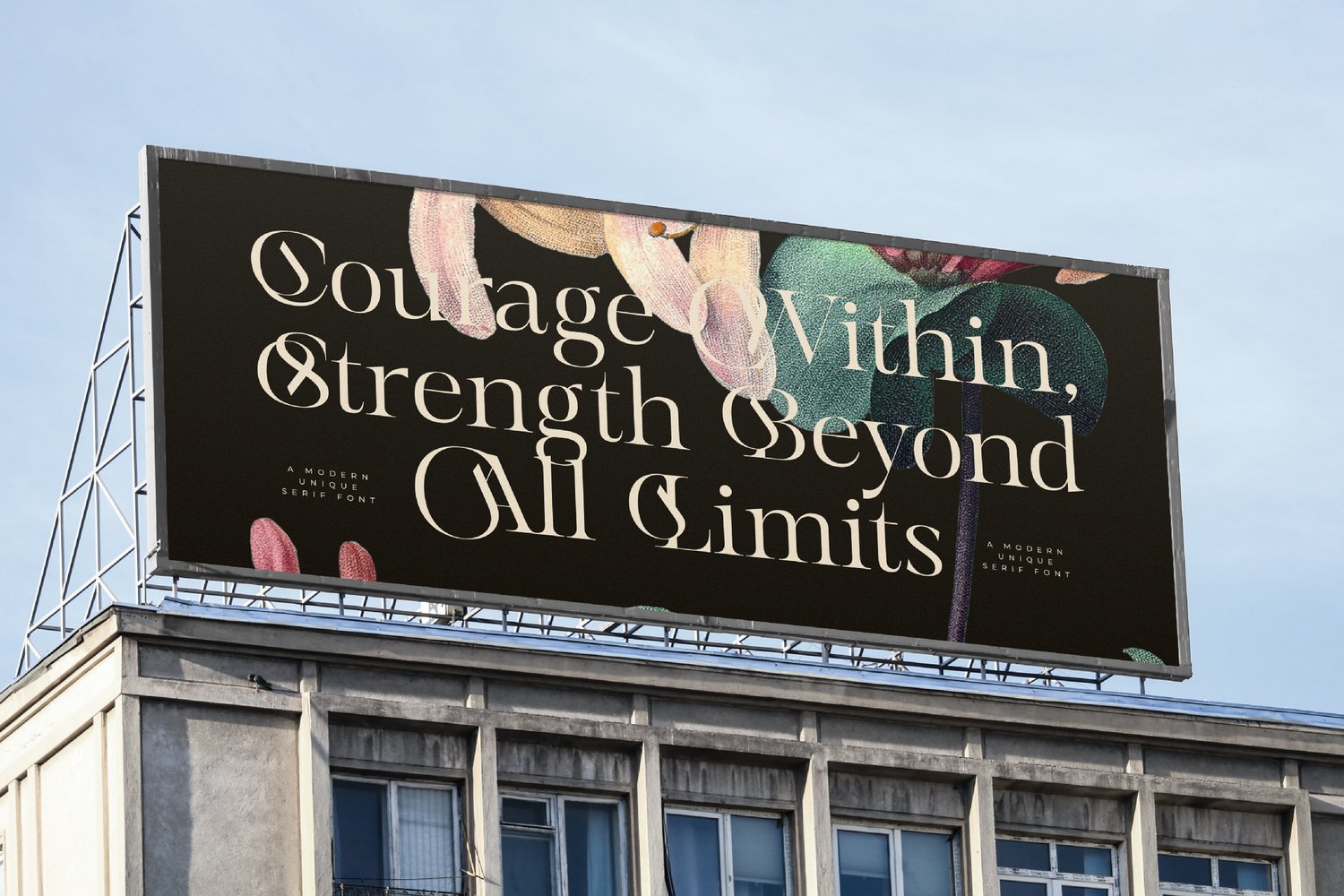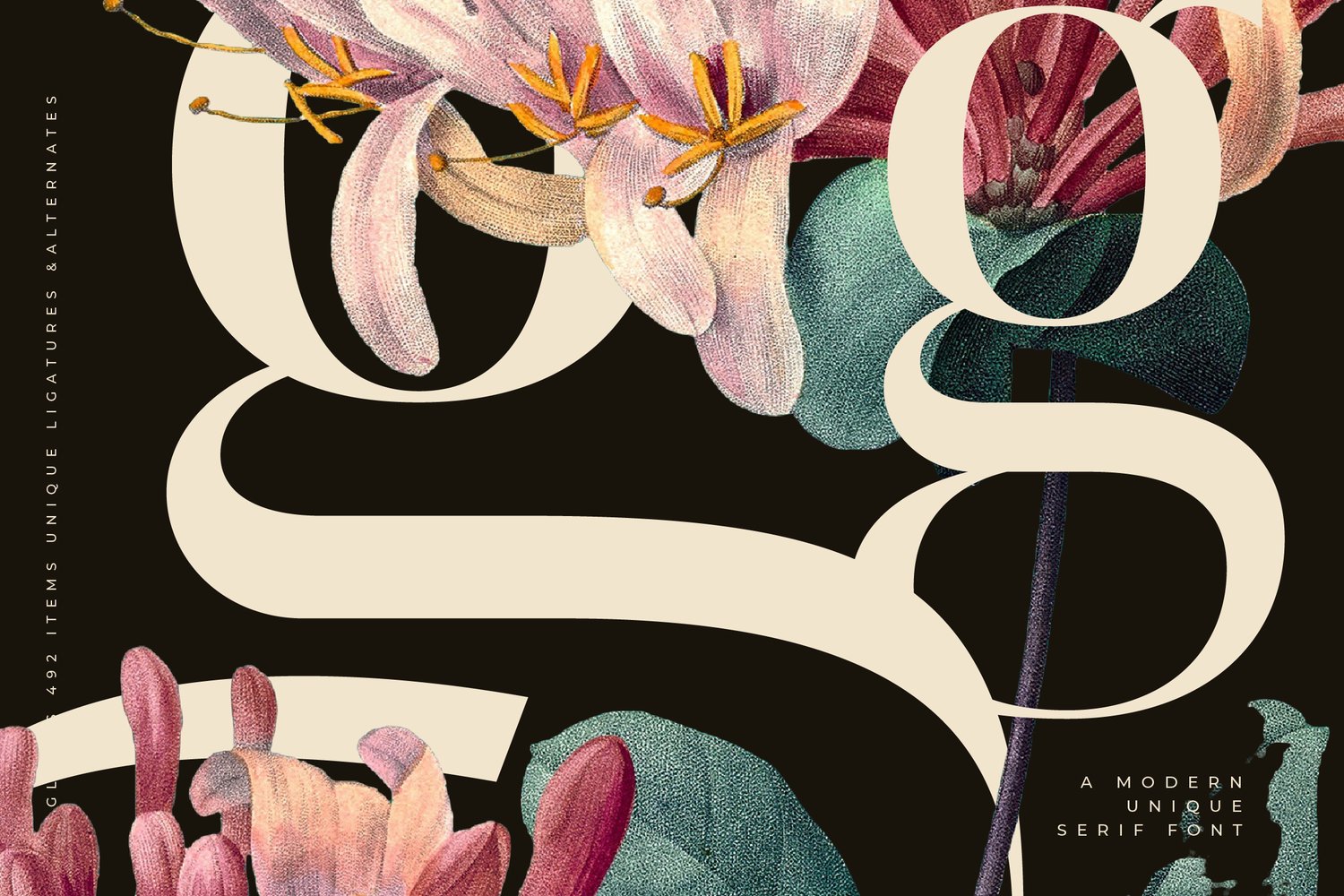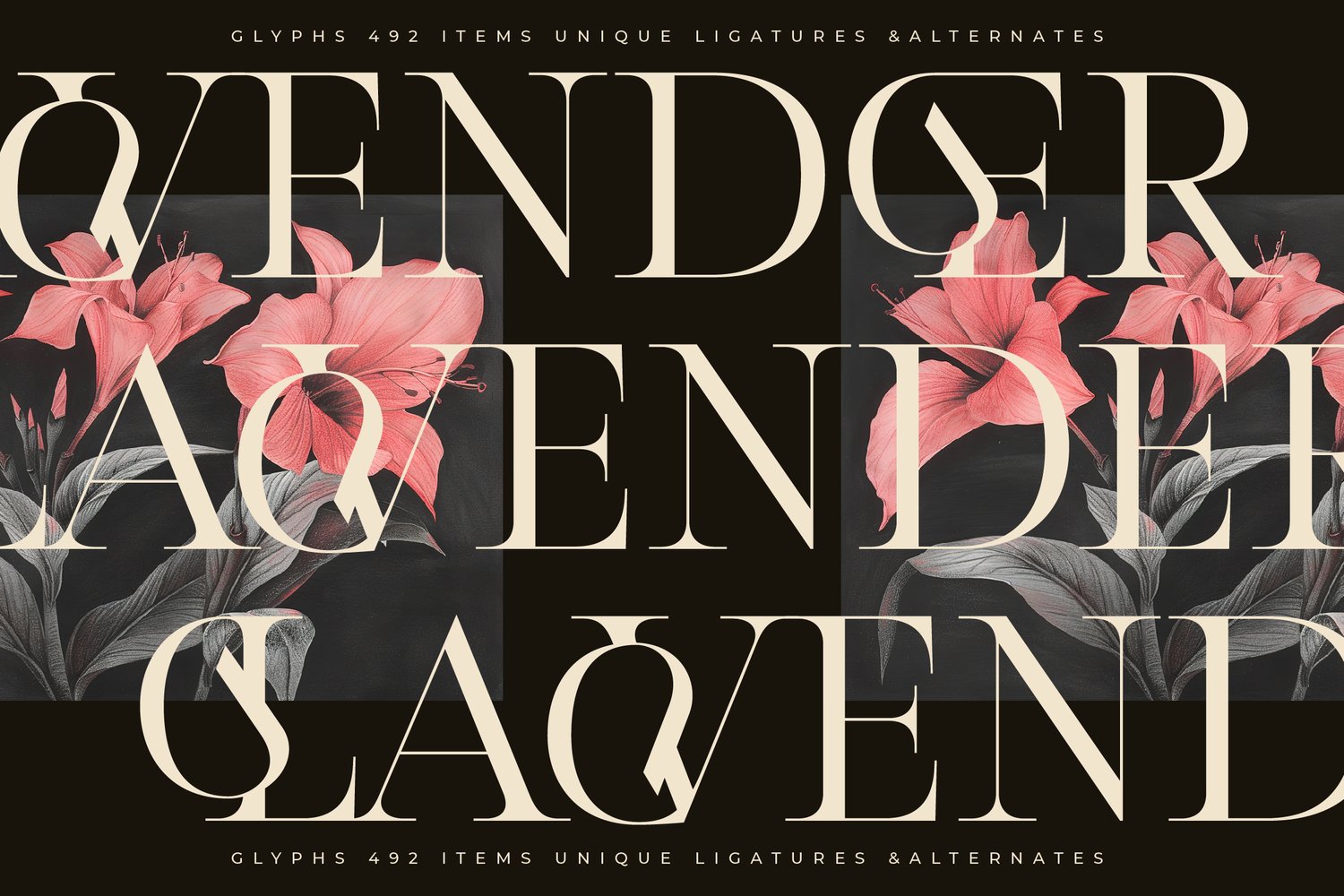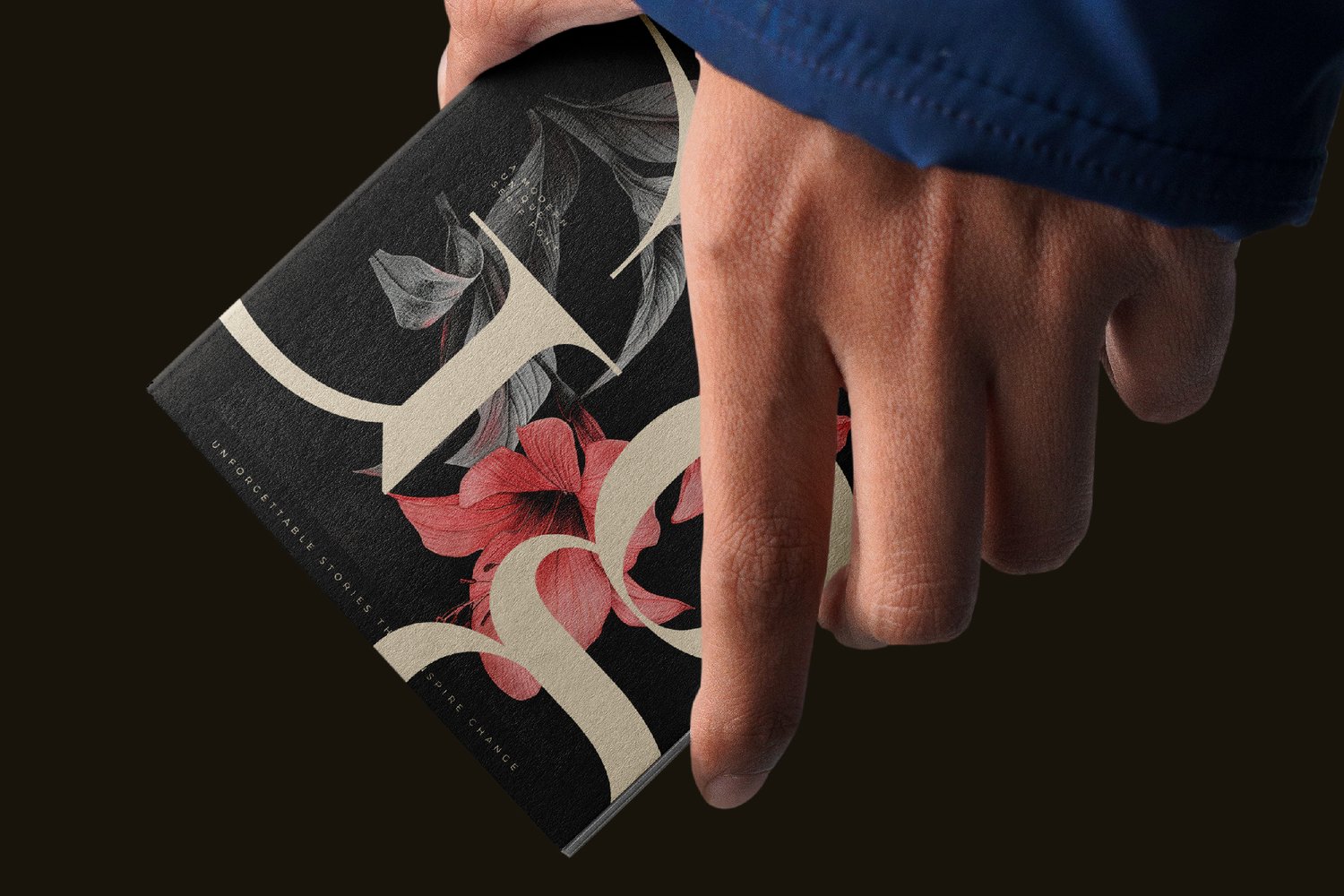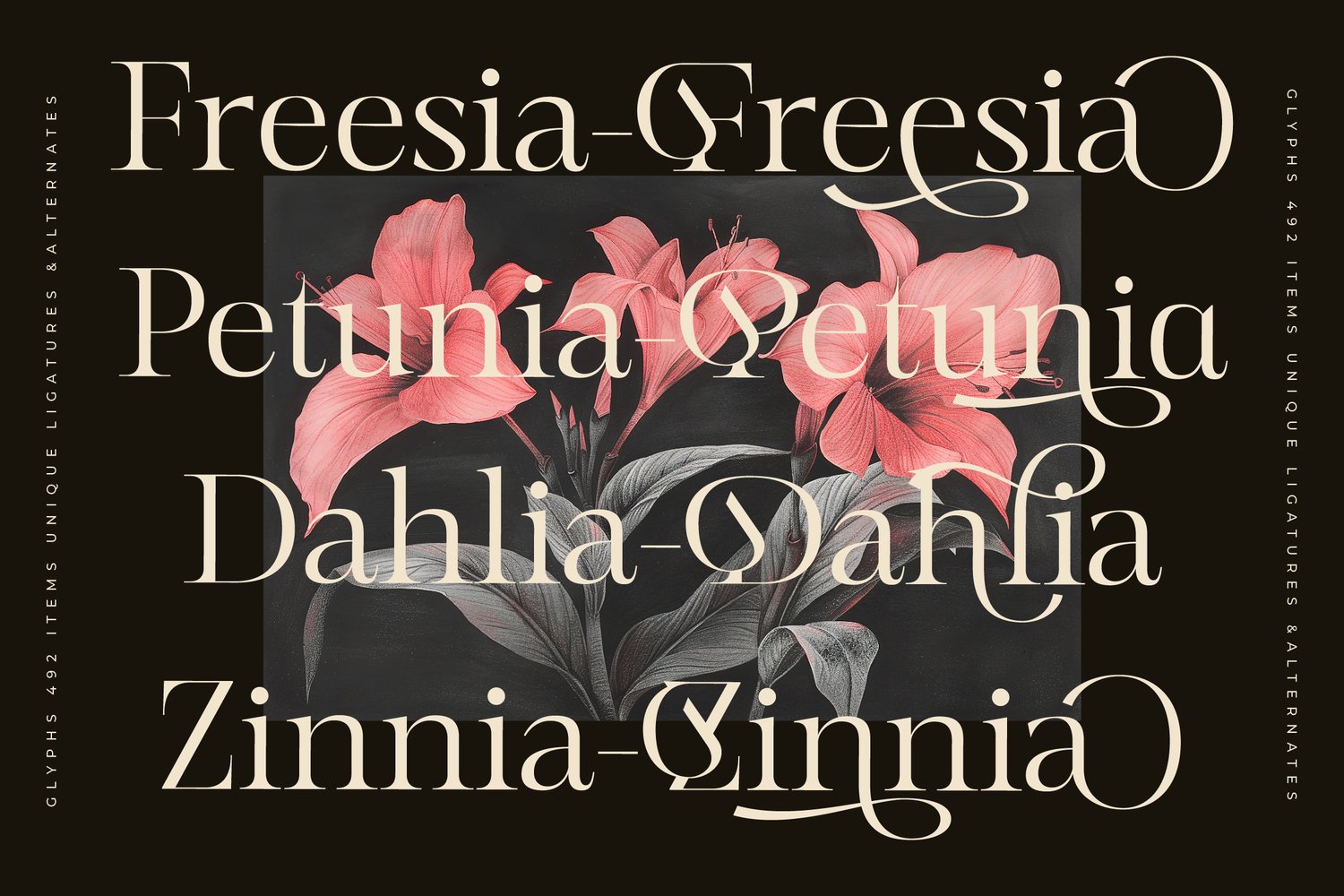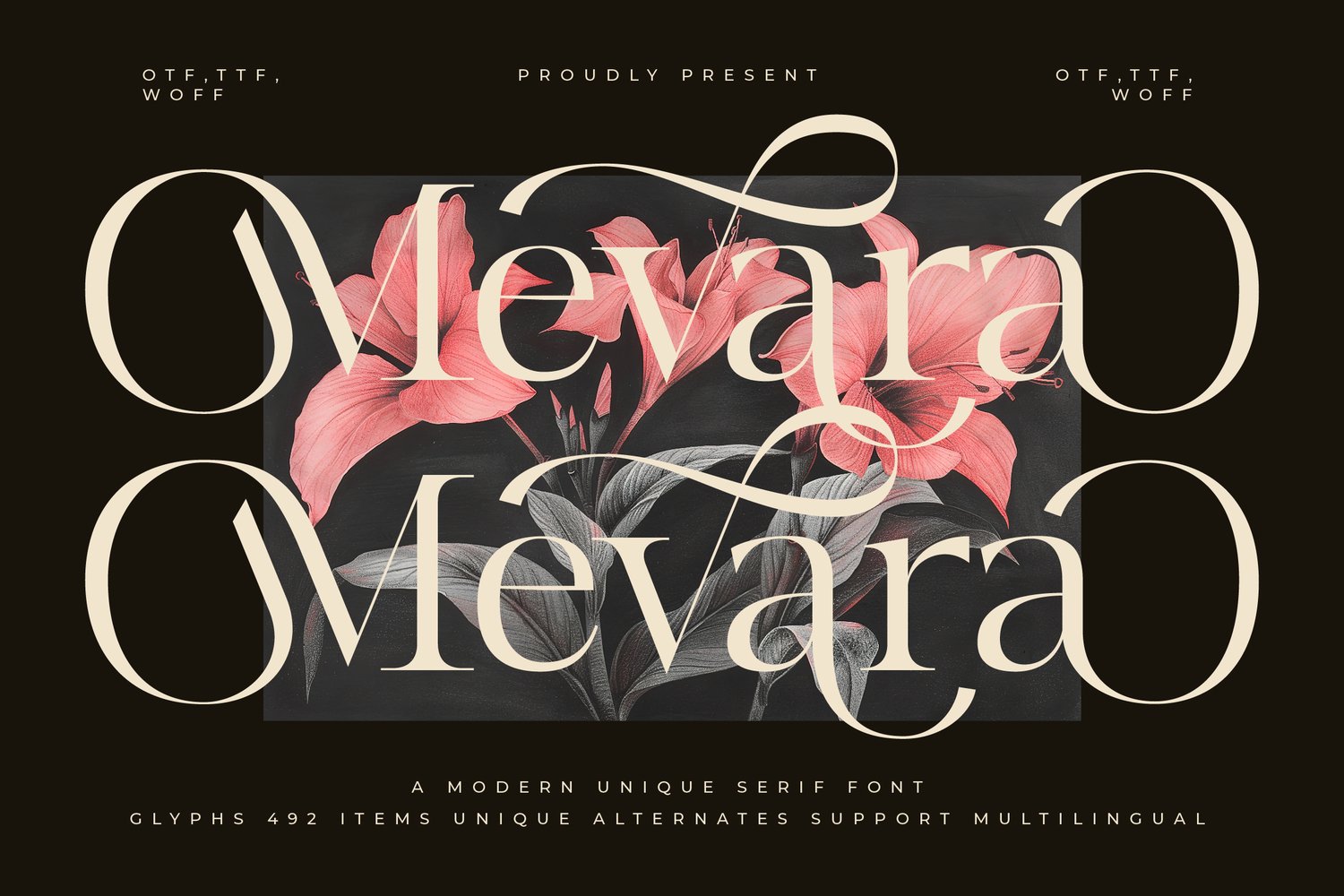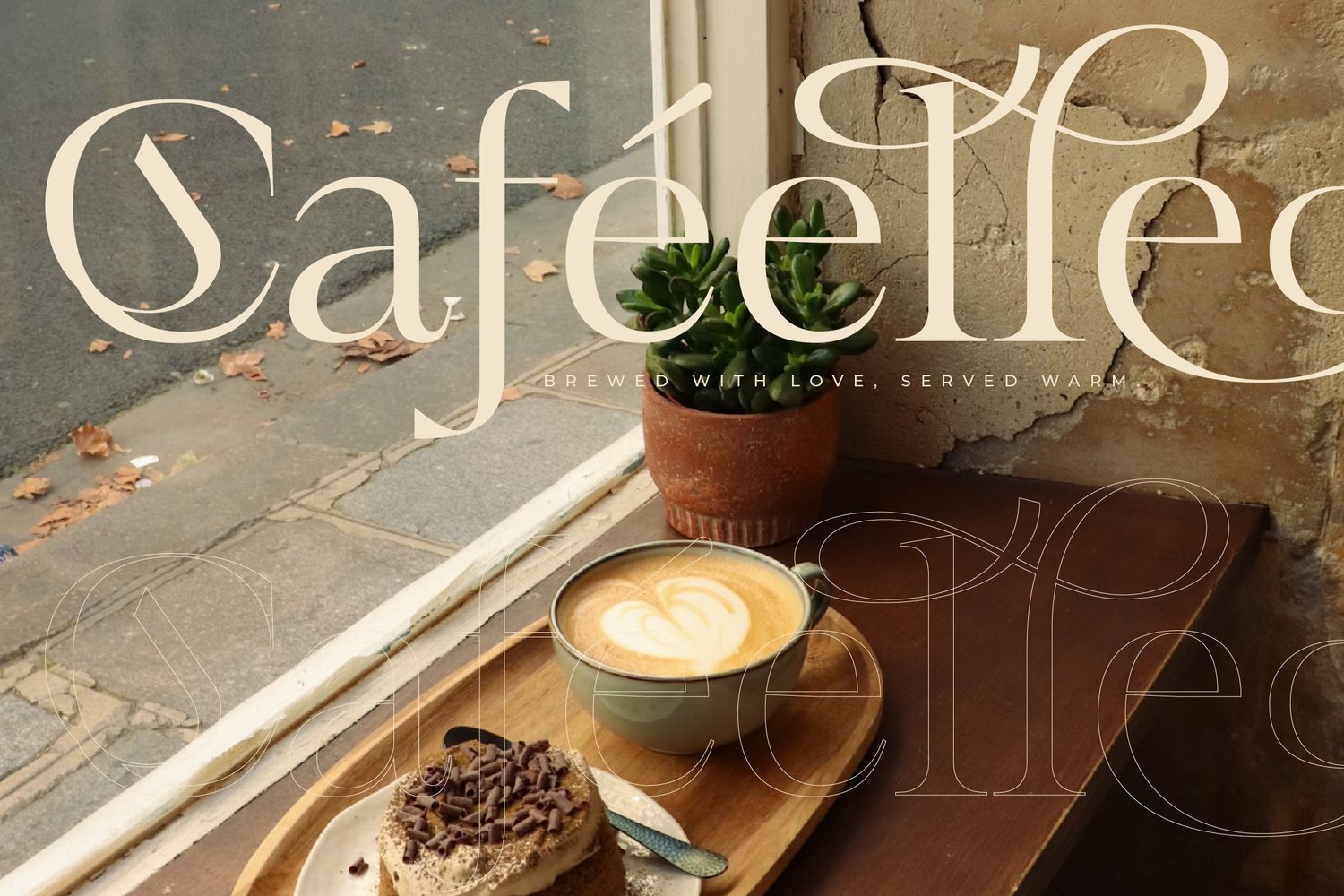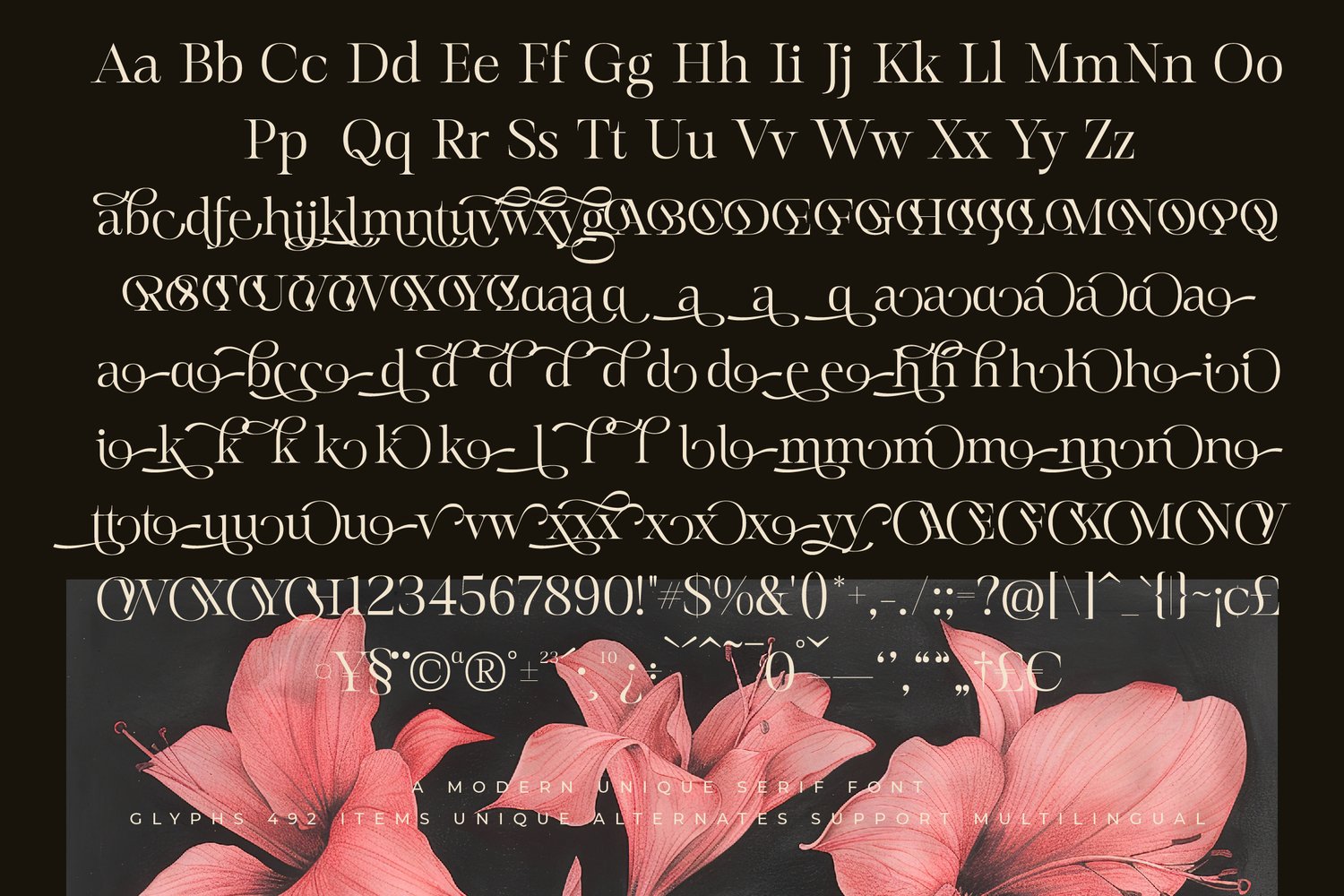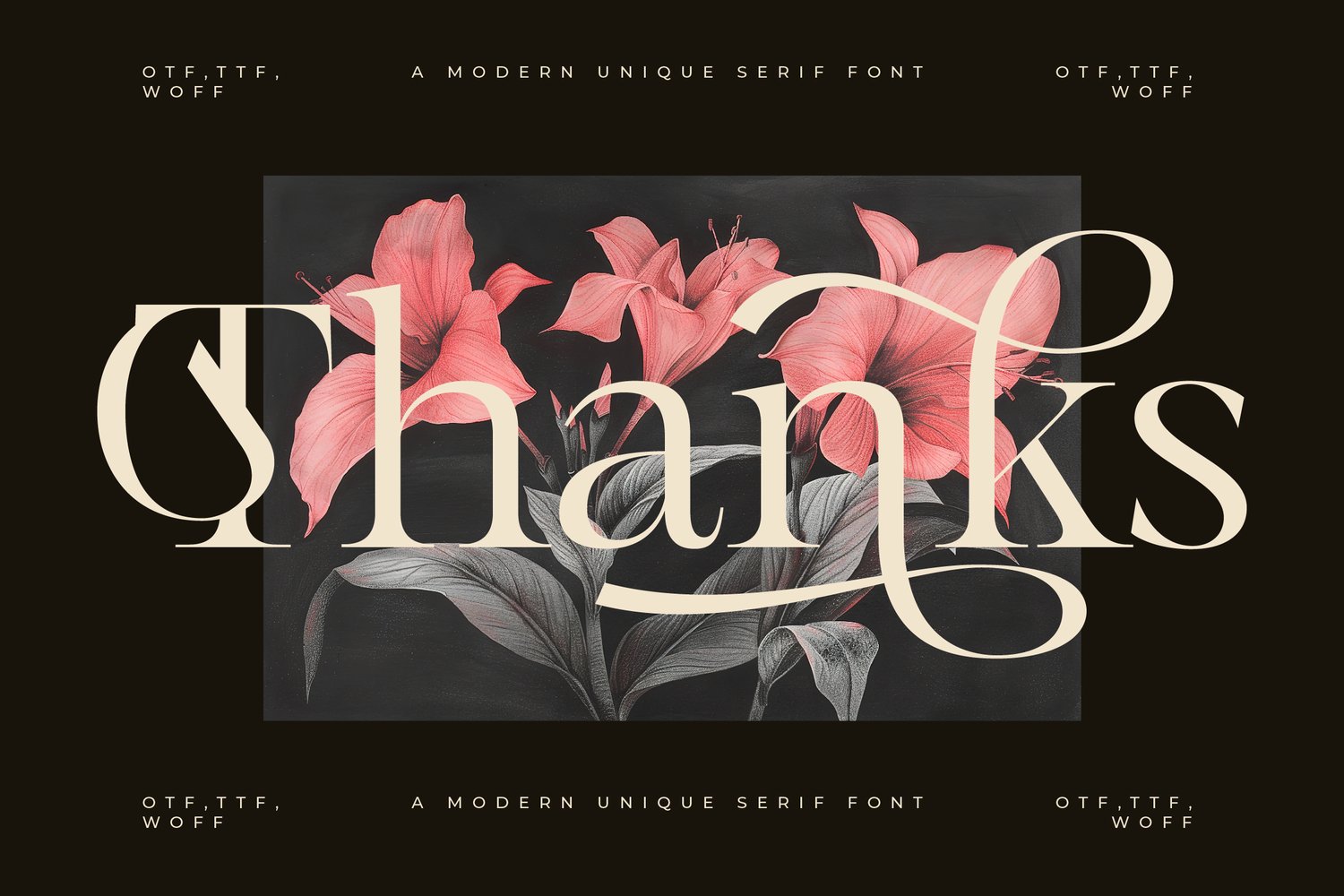
Mevara
Mevara is your visual ally. Meticulously crafted, it speaks authentic luxury, becoming the key to creating stunning visuals and leaving an unforgettable impression without compromise. Feel the confidence and relief seeing your brand shine or your invitation become a symbol of awaited elegance. Mevara is an investment in your visual elegance and professionalism. Get Mevara now – transform your vision into stunning reality and achieve the premium results you crave!